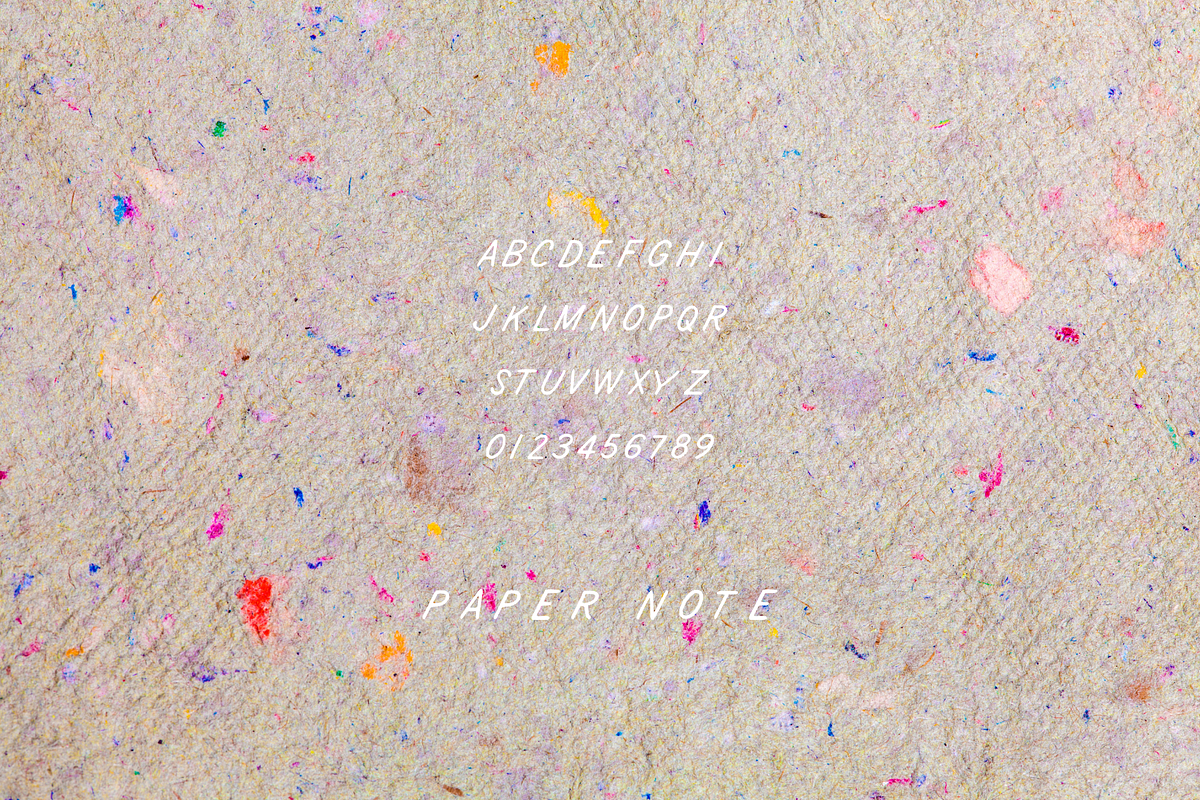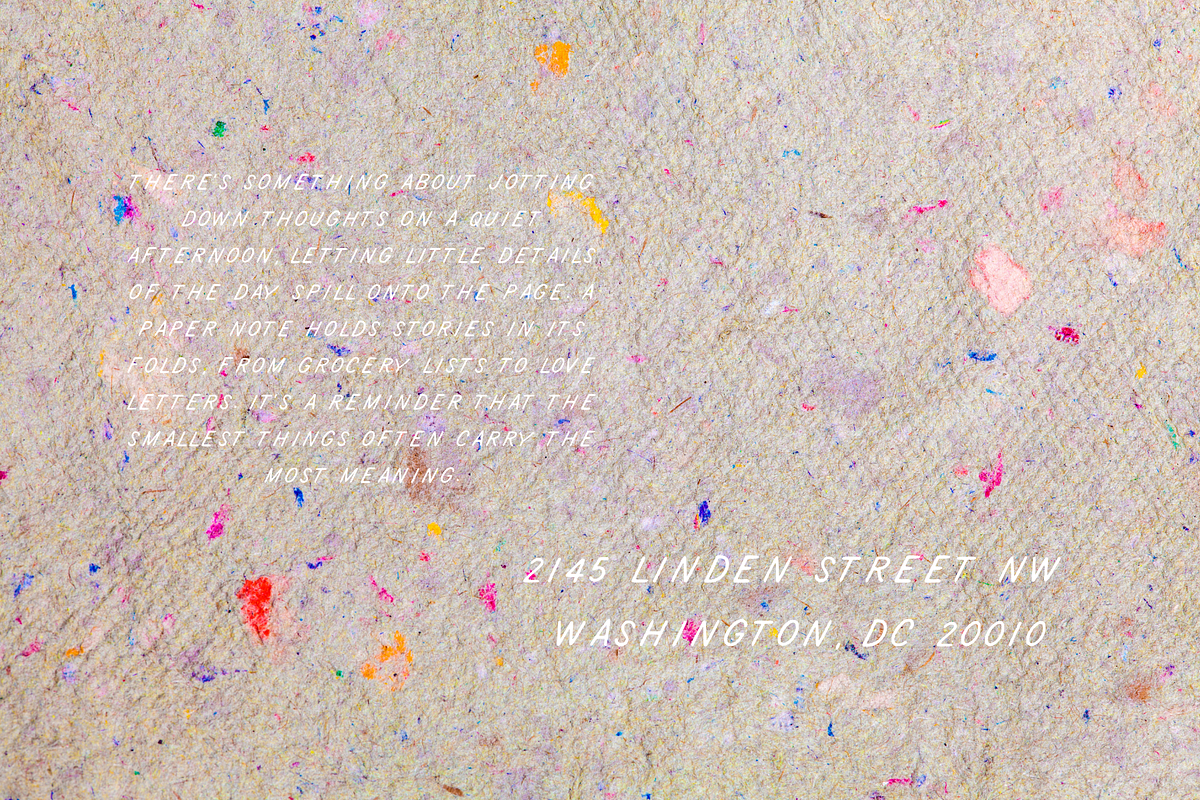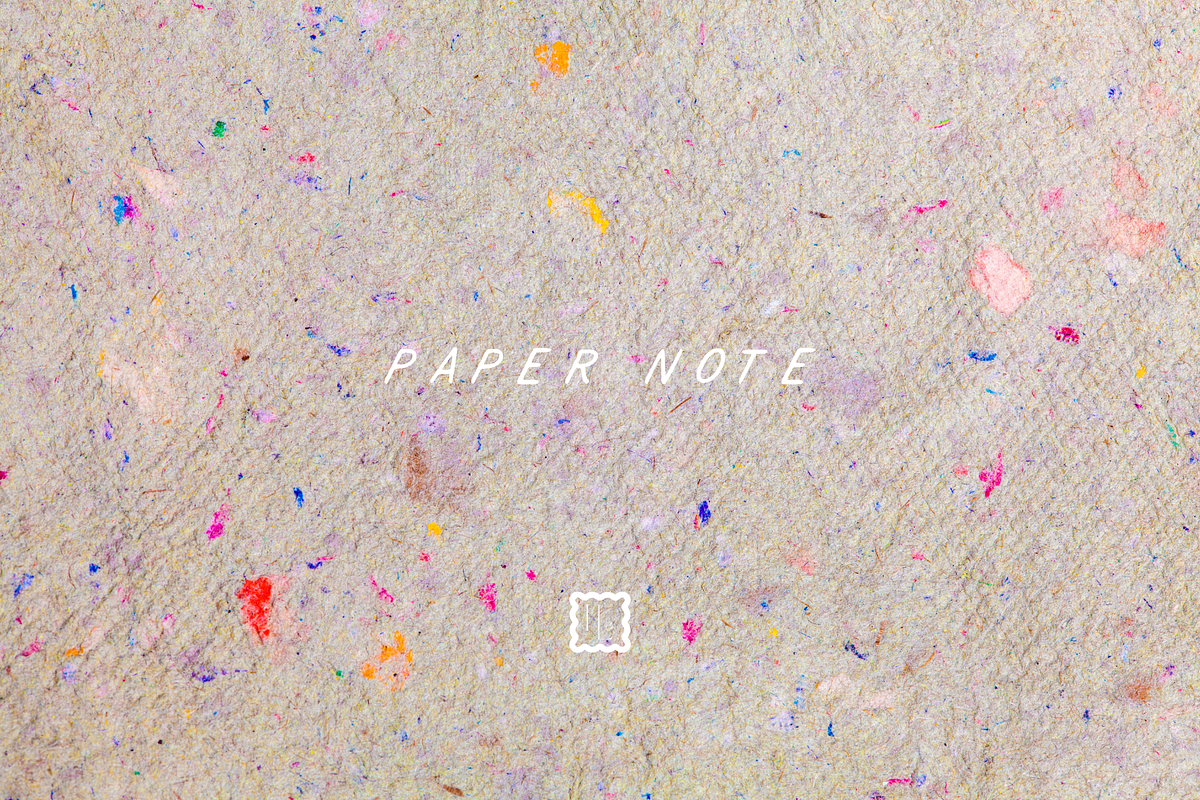
Paper Note
Paper Note is a casual handwritten font with a soft slant and smooth, natural strokes. Its approachable style captures the feel of everyday notes, making it a versatile choice for branding, stationery, social posts, and nostalgic designs. Featuring A–Z, numbers, and simple symbols, it includes both TTF and OTF file formats for easy use.